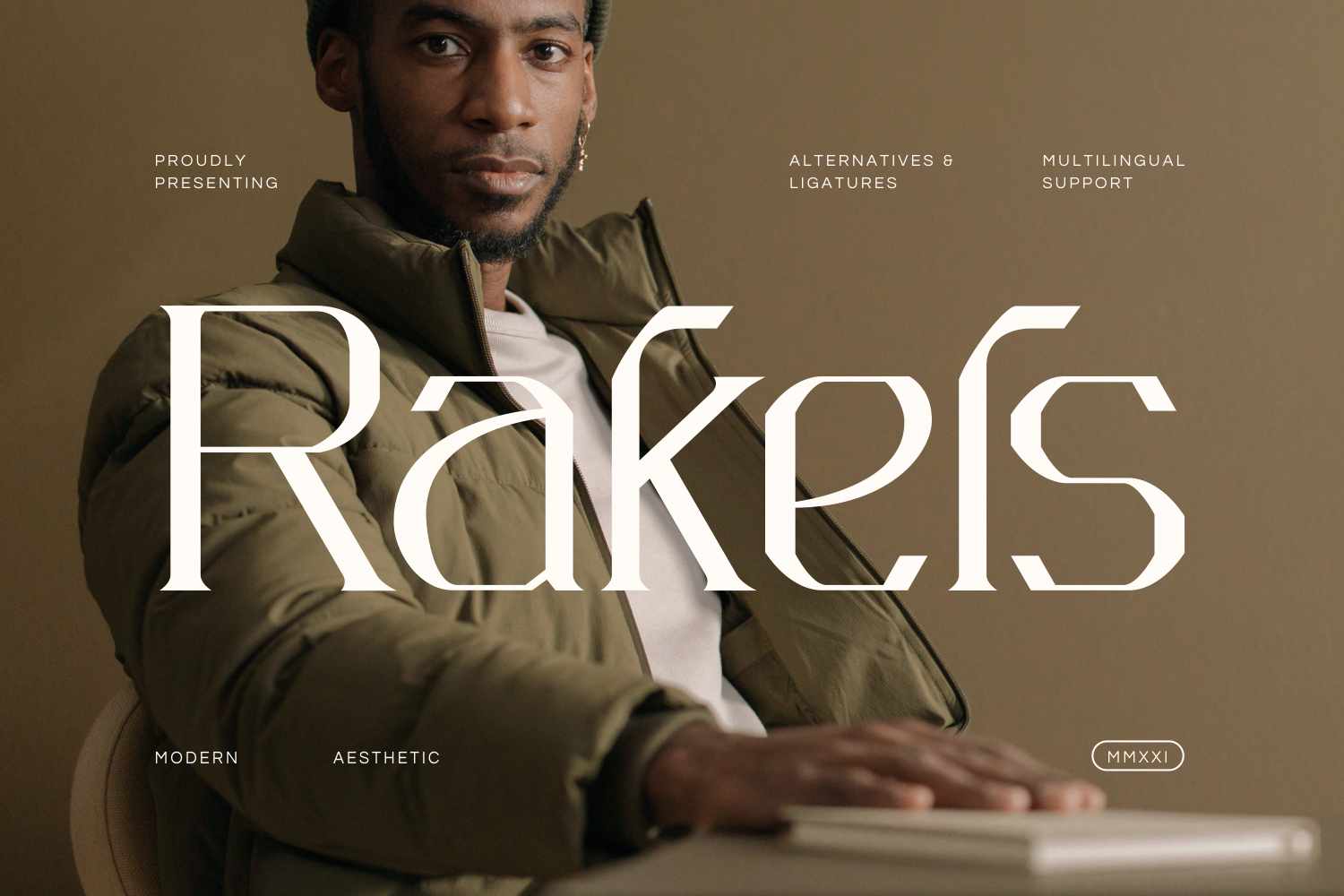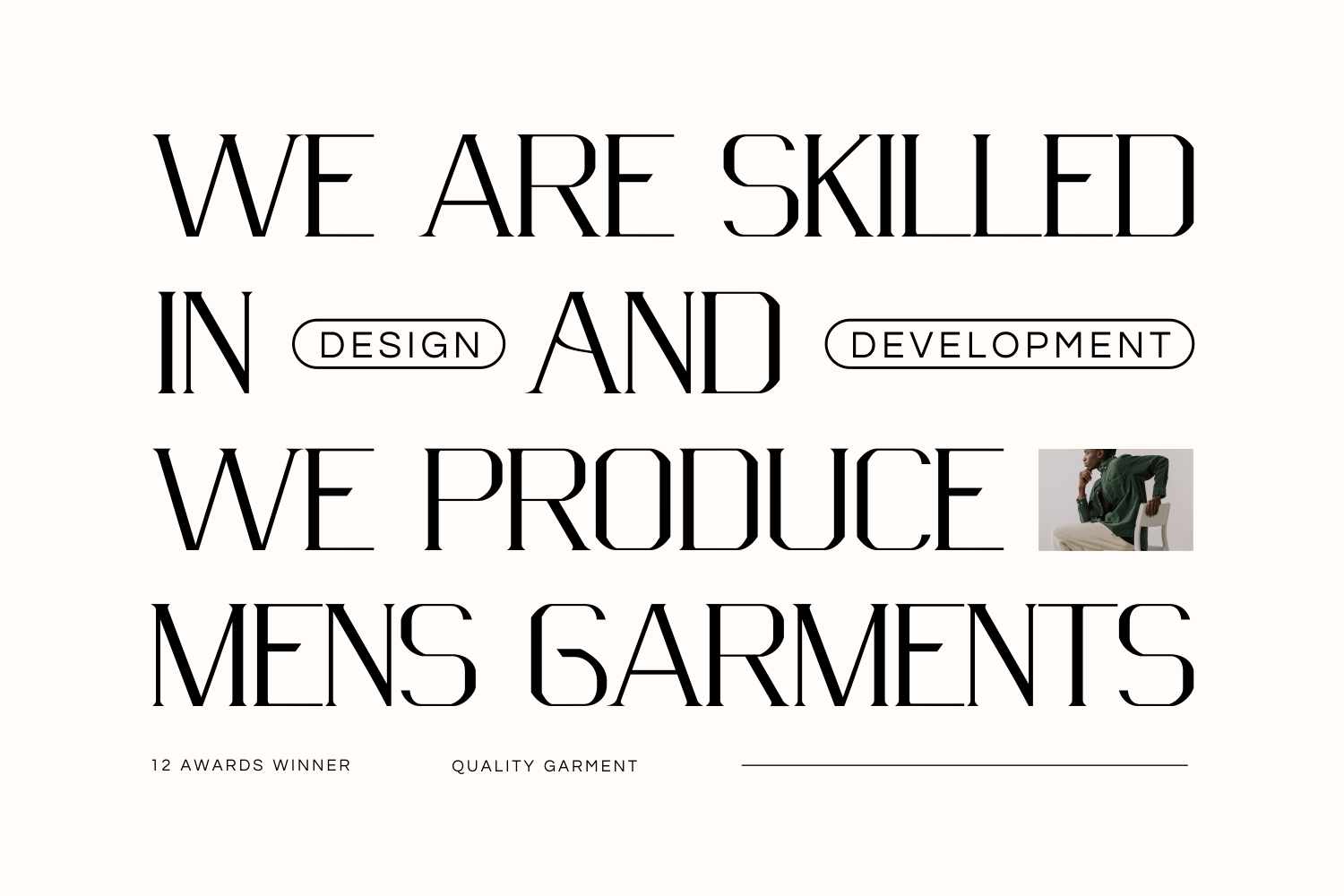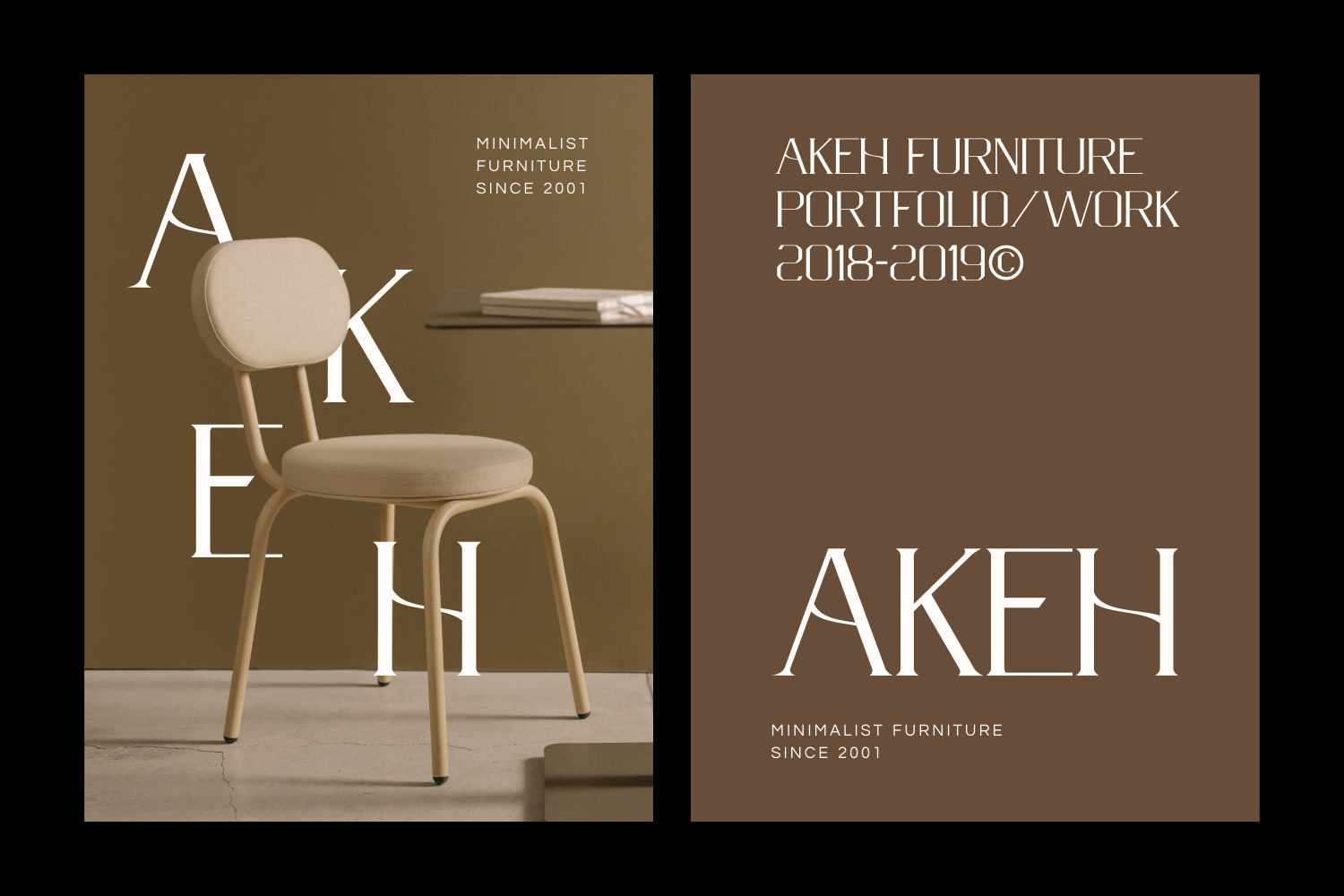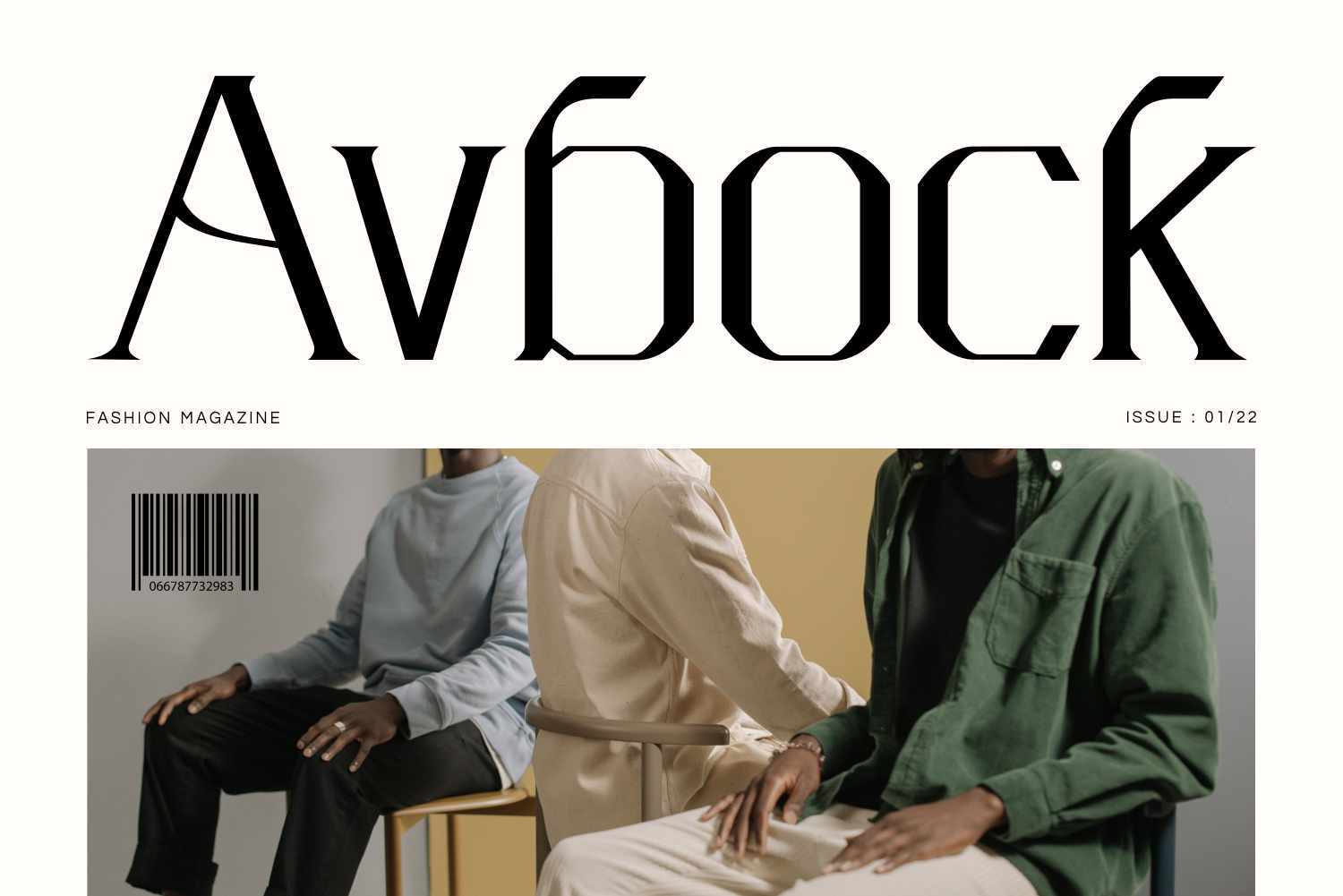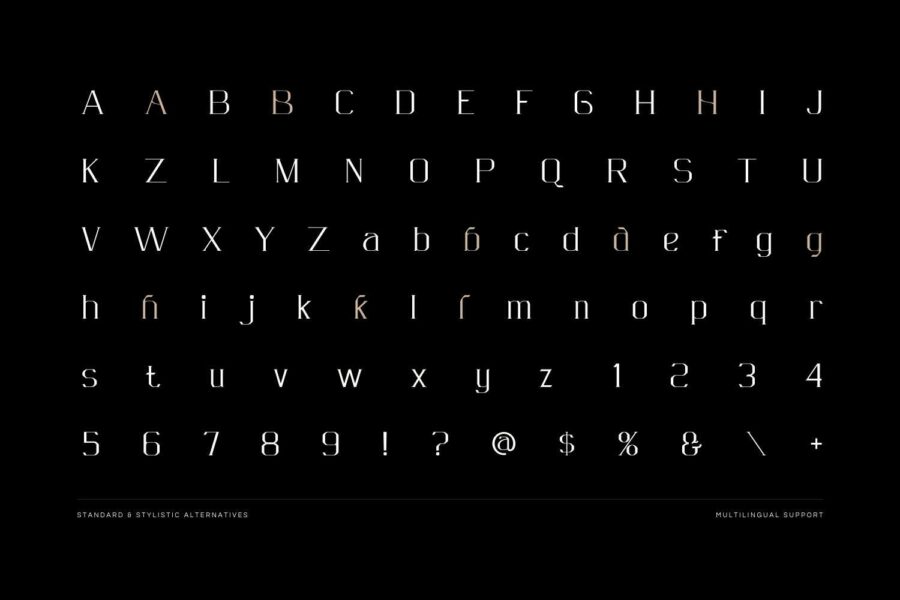
Rakels is a modern serif typeface that blends elegance with a distinct geometric edge. Its sharp, architectural letterforms and stylish ligatures give it a contemporary yet artistic character, making it perfect for fashion branding, editorial layouts, and luxury product packaging. The contrast in line weight combined with angular terminals adds a bold, confident tone to your designs.
Rakels also offers a wide range of stylistic alternates and multilingual support, allowing you to customize headlines or logos with a sophisticated twist. Whether used for minimalist posters or high-end marketing visuals, Rakels brings uniqueness and professionalism to any visual identity.